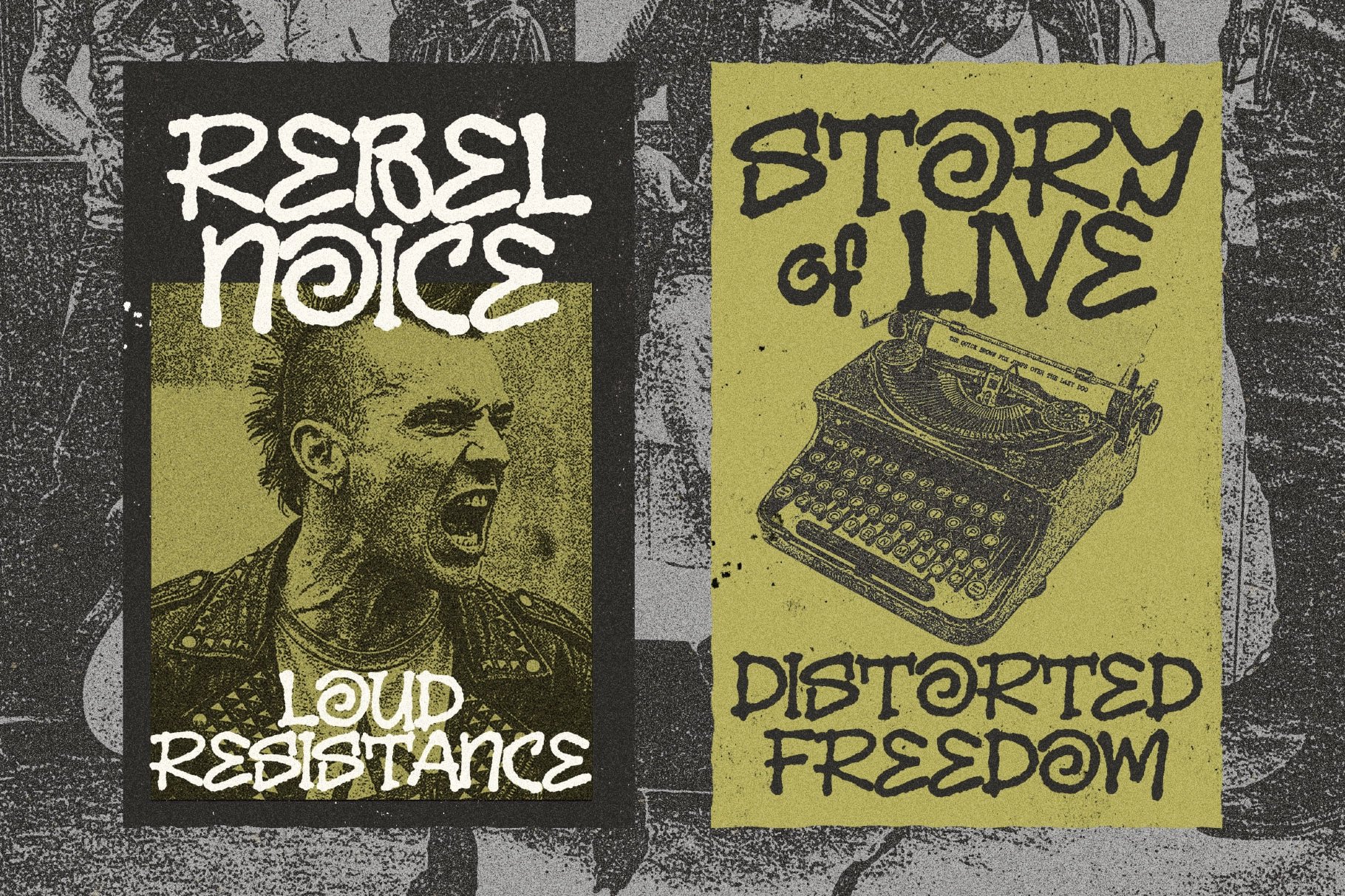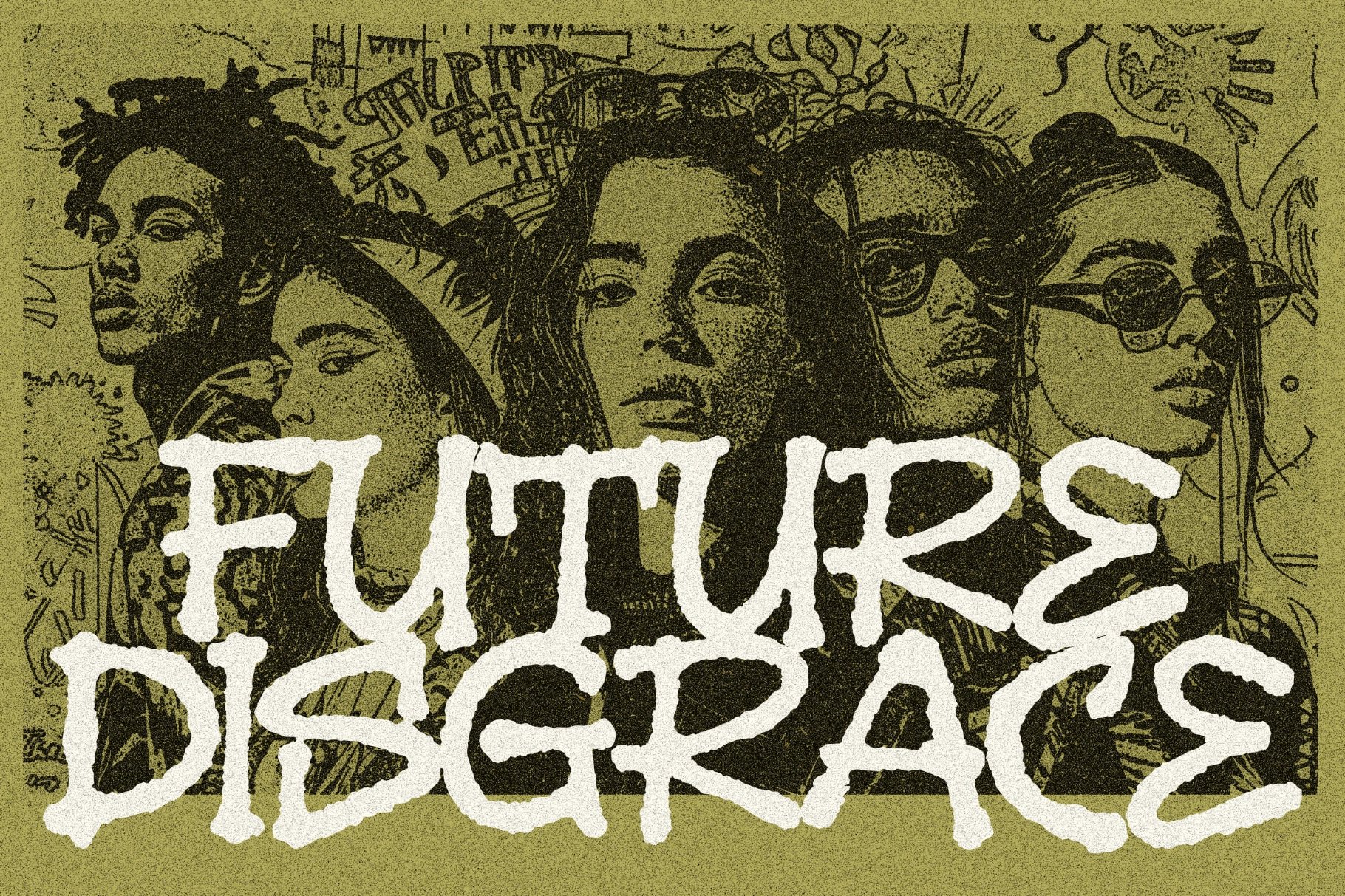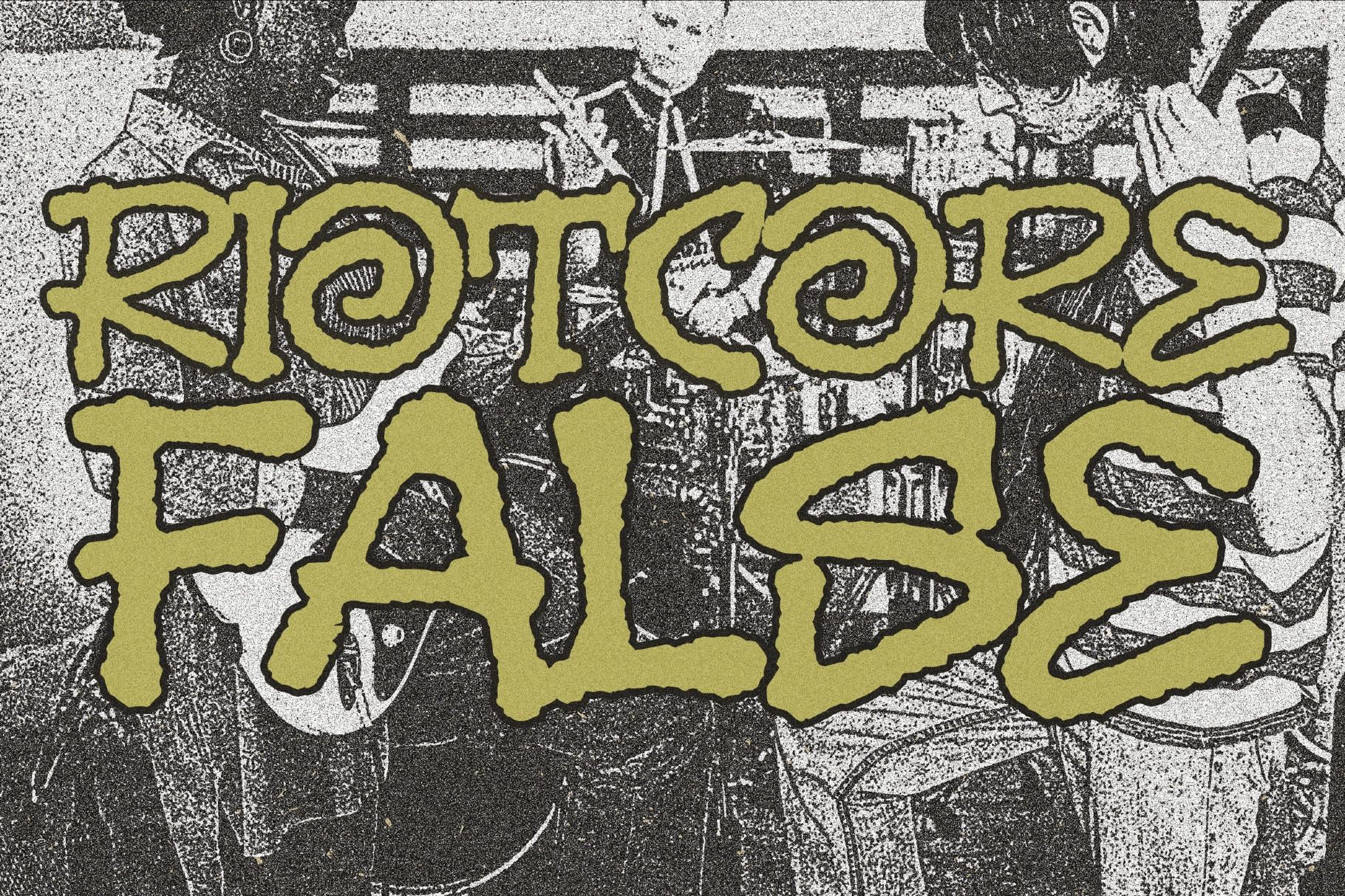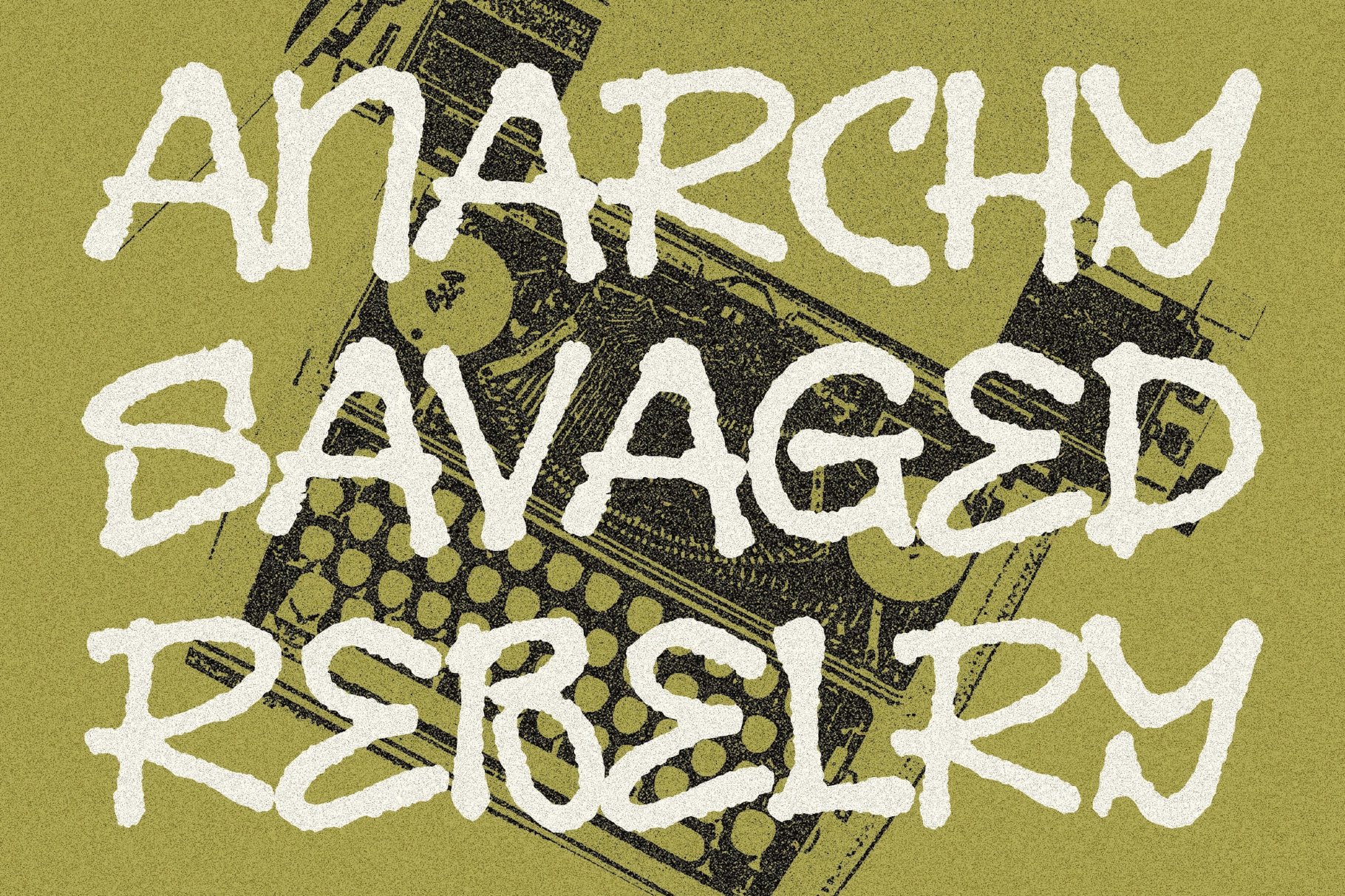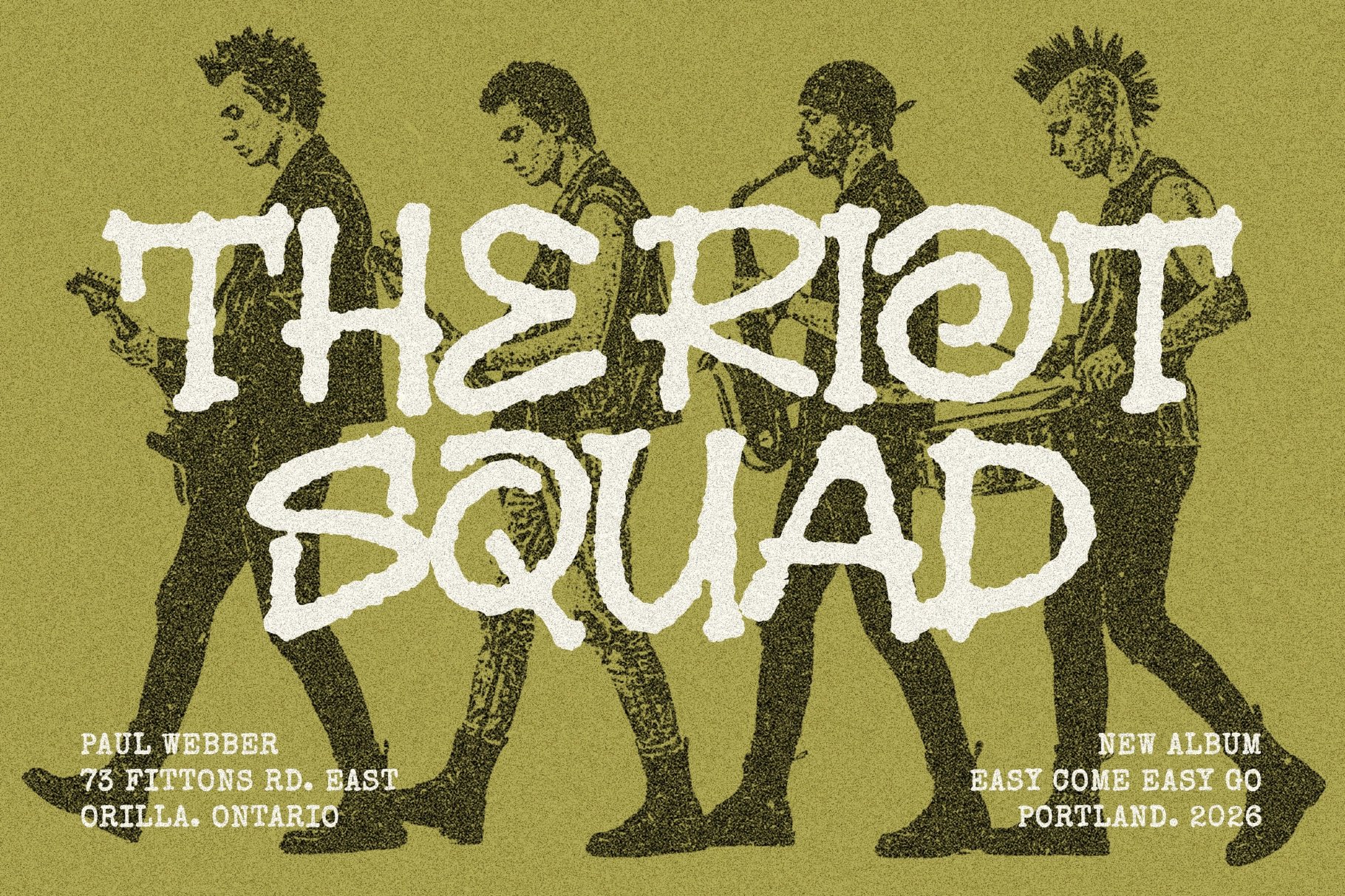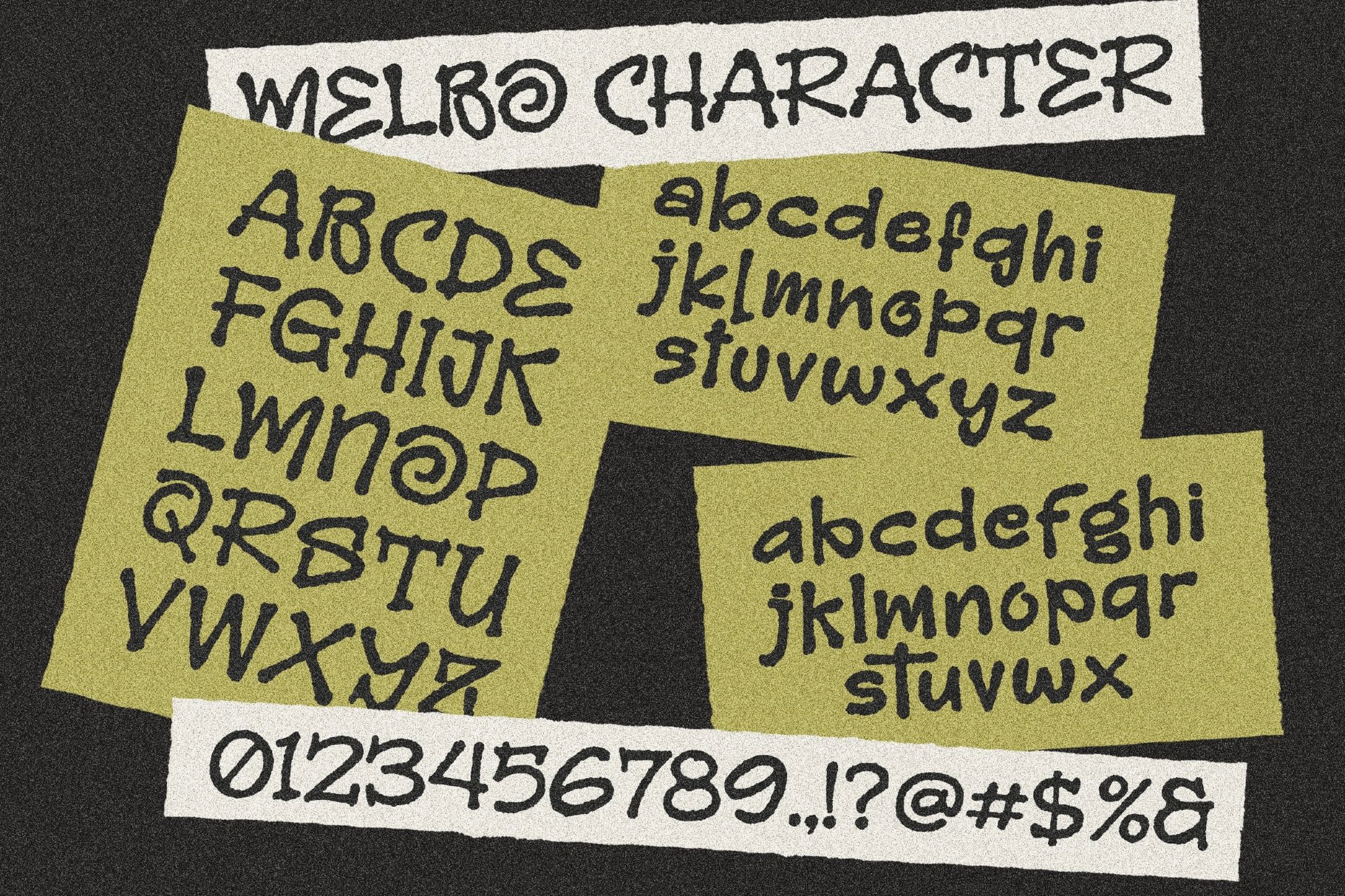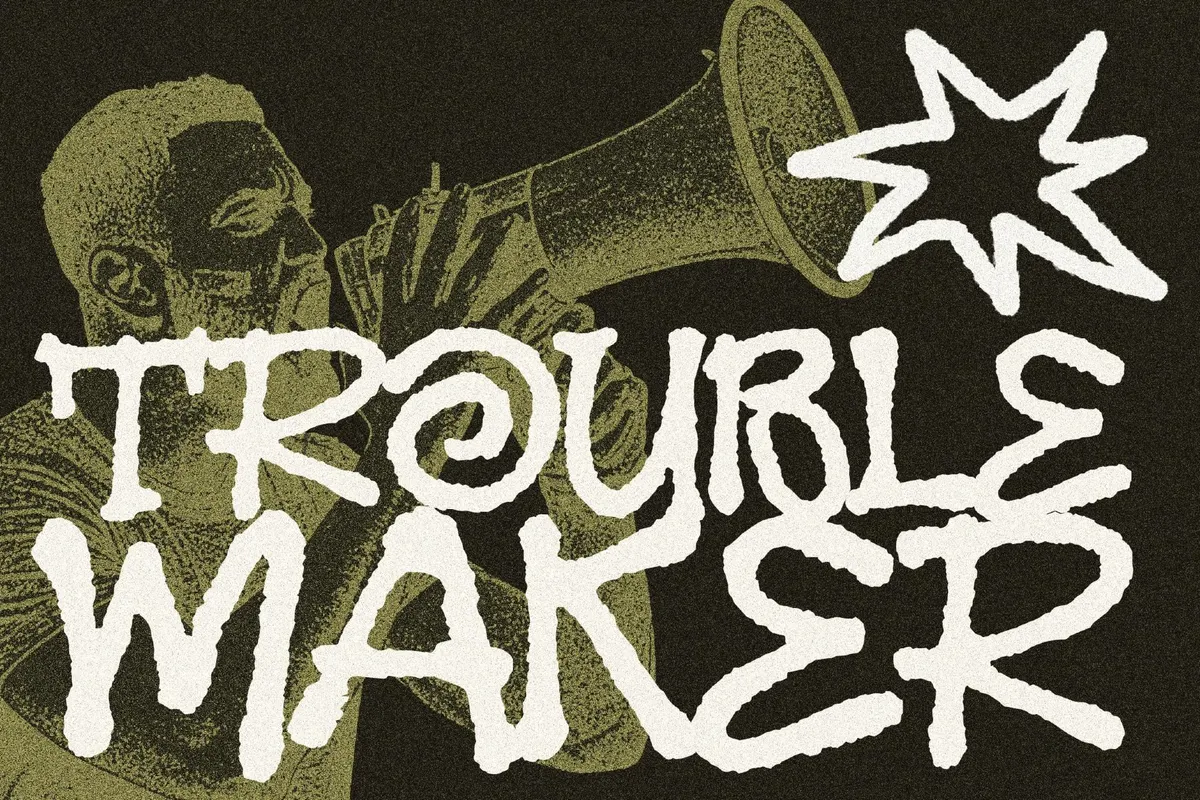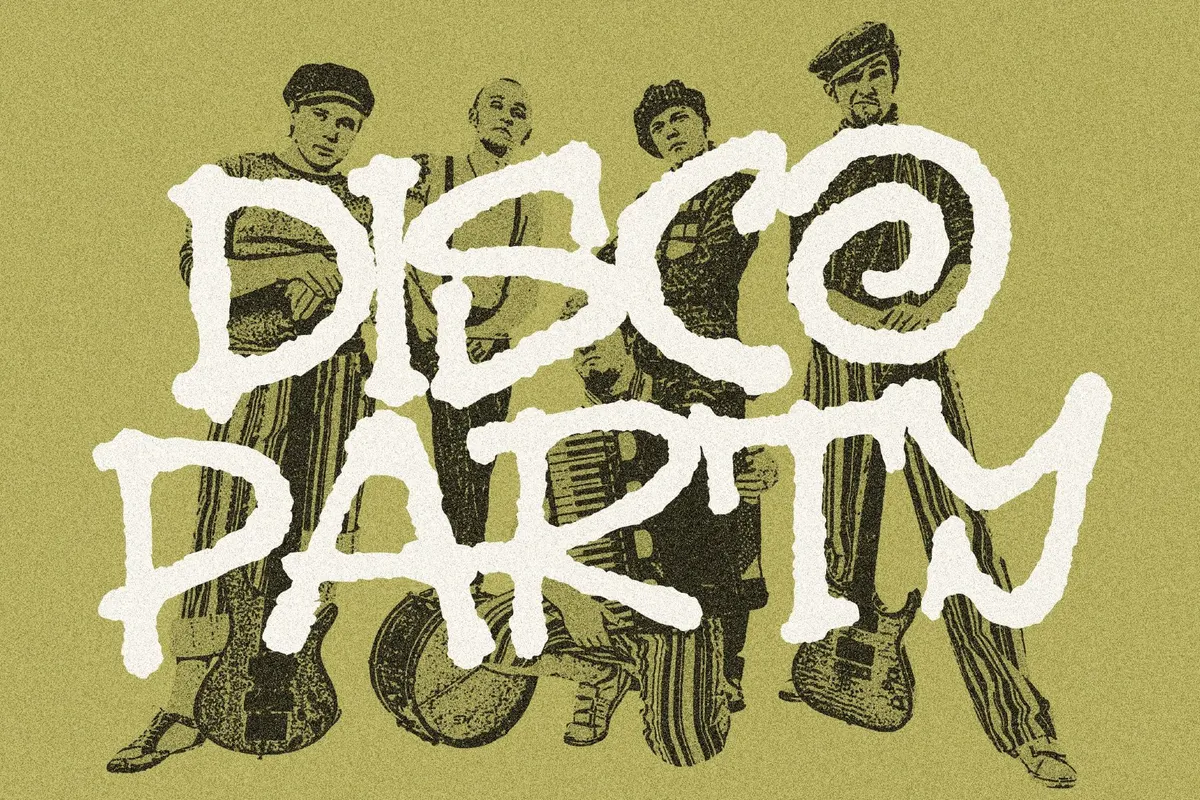
Melbo – Distressed Handwriting Font
Melbo
Melbo – Distressed Handwriting Font is a bold, raw typeface inspired by punk rebellion, underground zines, riot posters, and DIY street culture. Built from thick marker strokes and unapologetic texture, Melbo captures the energy of hand-scrawled messages across city walls—loud, expressive, and full of attitude.
This is not a polished or delicate font. Melbo embraces rough edges, ink bleed, and visual chaos to create typography that feels urgent and alive. Every letter carries movement and imperfection, making it perfect for designs that demand authenticity and impact.
Style & Personality:
- Distressed, rough texture
- Hand-drawn marker aesthetic
- Bold, aggressive strokes
- Punk, grunge, and hardcore influence
- DIY zine & protest poster vibe
- Raw, expressive character
- Numerals & Punctuation
- Textured Handwritten Style
- Strong Display Impact